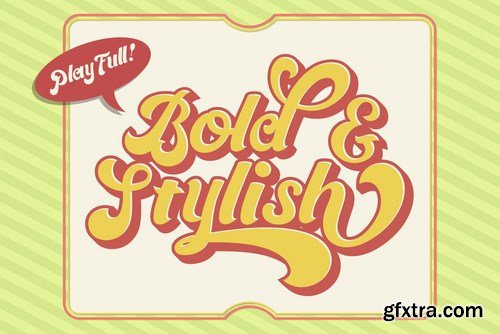
Proudly present “The Sitcom” retro script typeface. Inspired by 70-80’s TV show logo; the good vibration of POP culture, bold, glamour & color full.
This font is very easy to use with hundreds of stylistic alternate (ss01-ss10) & powered with opentype feature.
Alota is very unique and easy to apply to any media; t-shirts, posters, sign boards, and social media needs.
The font really bring a good statement for your logo design and can be the image of a design.